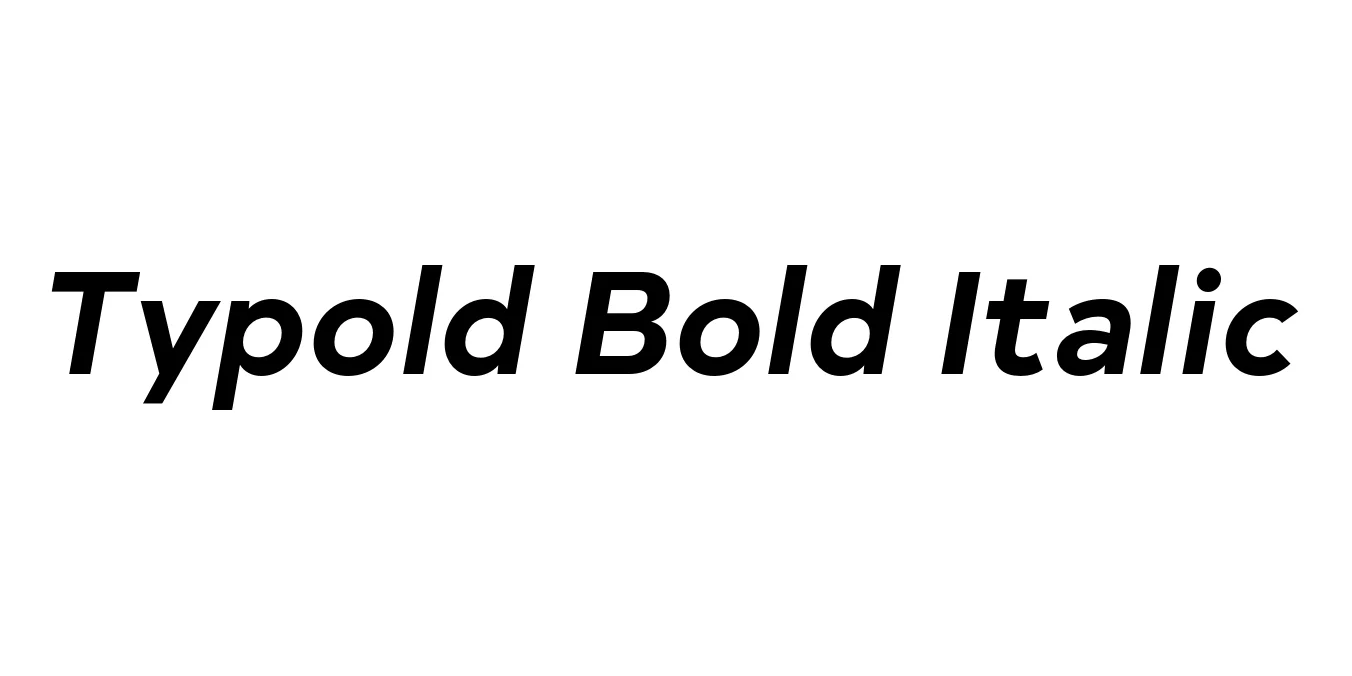
Typold Bold Italic
Designed by Jonathan Hill
| Font Name | Typold |
| Category | Geometric Sans Serif |
| Designer | Jonathan Hill |
| Similar Fonts | Gotham, Proxima Nova, Montserrat, Metropolis |
Typold Bold Italic is a distinguished member of the Typold font family, meticulously crafted by Jonathan Hill of The Northern Block. This typeface is a modern interpretation of the geometric sans-serif, engineered with mathematical precision to achieve a harmonious balance between technical refinement and aesthetic elegance. The Bold Italic weight specifically offers a forceful yet dynamic presence, making it an excellent choice for designers looking to convey authority and movement simultaneously.
The design of Typold focuses on clarity and legibility across various mediums, from high-resolution digital displays to traditional print environments. Its proportions are carefully calibrated to ensure that the italic slant maintains the structural integrity of the letterforms without losing the energetic flow. As a versatile tool for contemporary branding, it integrates seamlessly into complex typographic systems, providing a professional and sophisticated look that stands out in competitive markets.
Typold Bold Italic Best Uses
Ideal for creating strong, memorable logos and corporate identities.
Perfect for high-impact headlines and UI elements that require clarity.
Excellent for magazine layouts, pulling quotes, and providing emphasis in body text.
Great for promotional materials that need a bold, professional edge.